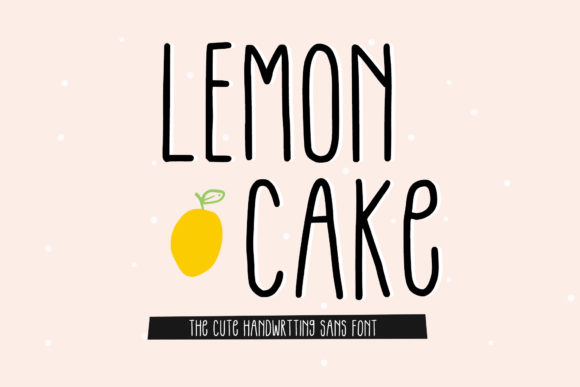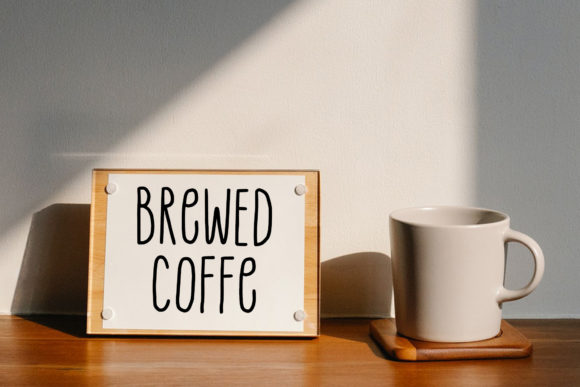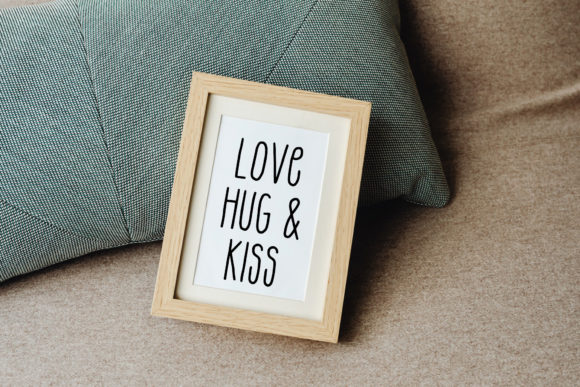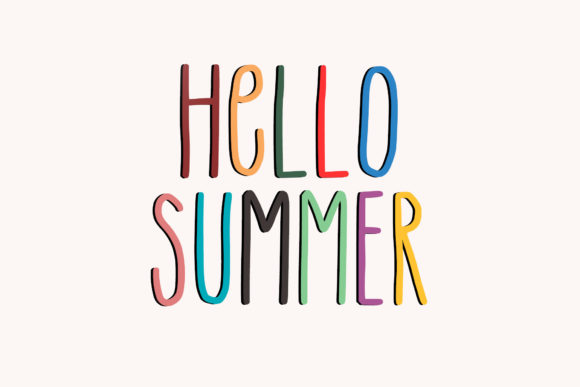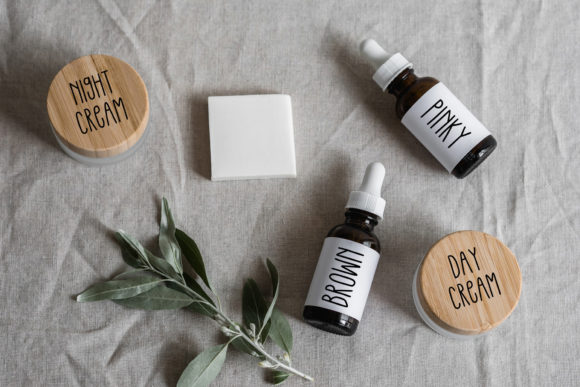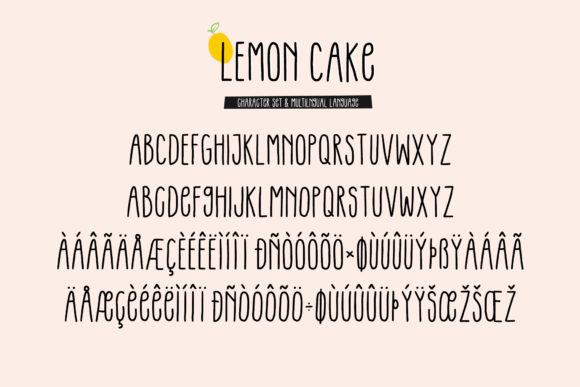
Lemon Cake Font
About Lemon Cake Font
Lemon Cake is a tall and thin lettered handwritten font, that can be used for all chalkboard quotes or teaching material! Its authentic look will add a personal and realistic feel to your designs.